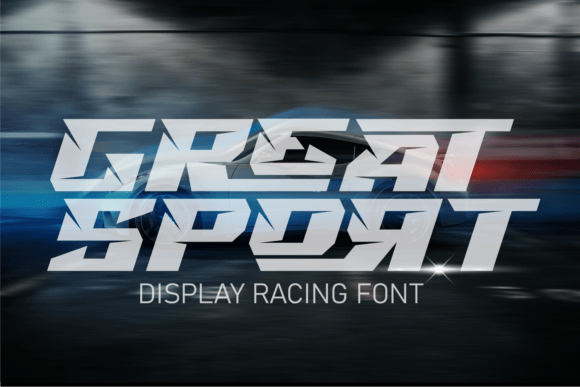
Welcome to the world of speed and power, where passion meets motion. Great Sport Font, a masterful creation by 177Studio, is not just a font; it's an adrenaline rush for your designs. This electrifying display font captures the essence of racing, igniting a visual symphony of speed and dynamism.
Step into the pit lane of creativity with Great Sport, the ultimate font for racing enthusiasts, sports fanatics, and automotive aficionados. Its sleek and aerodynamic letterforms evoke the exhilaration of the racetrack, leaving your audience breathless. Unleash the power of motion with this font, and watch your designs cross the finish line of excellence.
Great Sport's bold and dynamic personality makes it the perfect choice for roaring headlines, pulsating posters, and heart-stopping social media posts. Transform ordinary text into a visual spectacle, leaving an indelible mark on your audience. Elevate your racing-themed projects with this font, and leave your competitors in the dust.
But Great Sport's versatility extends beyond the world of motorsports. Its energetic and modern style effortlessly adapts to a wide range of projects, from sports titles and running match promotions to cycling events and automotive game logos. This font is your creative companion, ready to infuse your designs with a jolt of adrenaline and a dash of sophistication.
With Great Sport, you'll discover a new level of typographic freedom, where creativity knows no limits. Its captivating letterforms will add an instant touch of excitement to your projects, making your designs race ahead of the competition. Embrace the thrill of the chase and let Great Sport be your guiding force towards typographic victory.